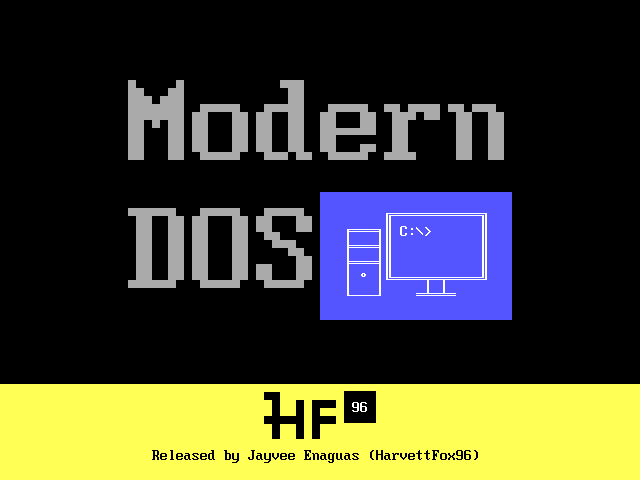
==== Description ==== Modern DOS is a monospace pixel serif based on IBM and Verite, extracted from VGA ROM fonts on real machines made other manufacturers, created with FontForge. ==== Update Log ==== Version 2017.05.01: - Add sizes 8x14 (EGA) and 9x14 (MDA). - Fix minor few character glyphs. Version 2017.03.25: - Add sizes 8x8 (CGA) and 8x16 (VGA). - Better release version date style. - Change license CC BY-SA 3.0 to SIL OFL 1.1. - Fix minor few character glyphs. - Redraw all character glyphs with Inkscape. - Rename Moder DOS to Modern DOS. To browse source files available on NotABug: https://notabug.org/HarvettFox96/ttf-moderndos Released by Jayvee Enaguas (HarvettFox96), licensed under SIL OFL 1.1. (C) 2009-2017. |